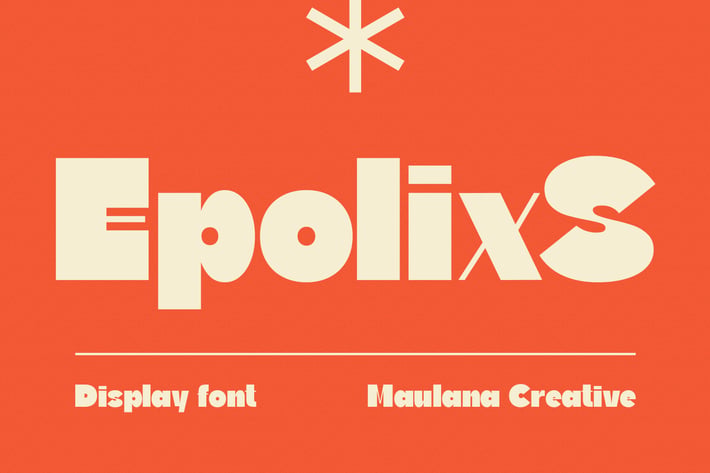
Epolixs Display Font
Epolixs is a semi geometric display font. ExtraBold stroke, fun character with a bit of ligatures. To give you an extra creative work. Epolixs font support multilingual more than 100+ language. This font is good for logo design, Social media, Movie Titles, Books Titles, a short text even a long text letter and good for your secondary text font with script or serif. Make a stunning work with Epolixs font.